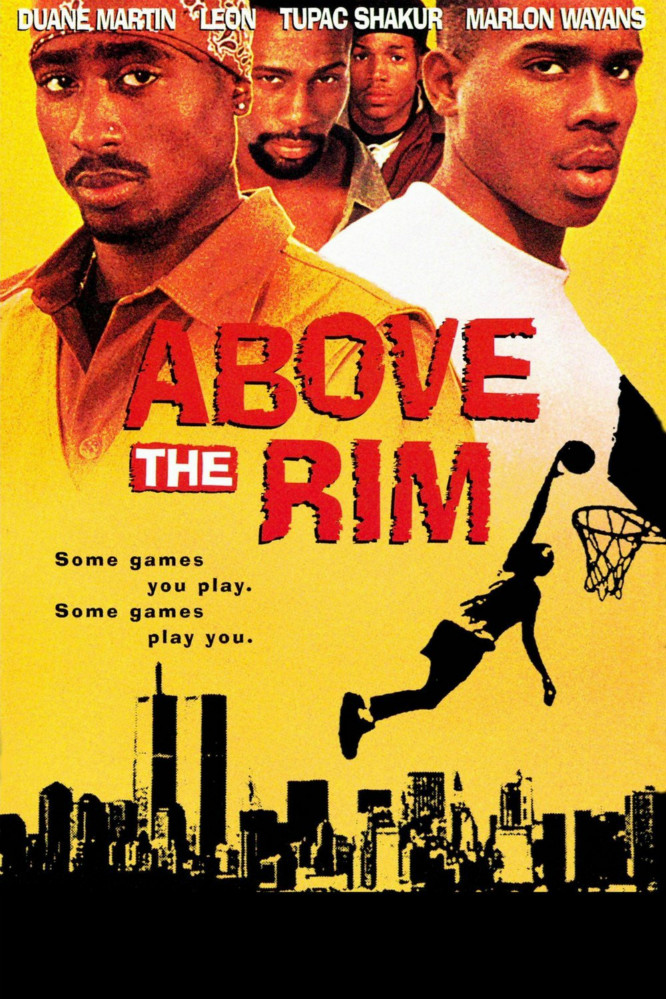
Above the Rim Font
Fonts in UseAbove the Rim is a 1994 sports drama film that follows a talented high school basketball player navigating the challenges of street life while chasing his dreams of playing in the NBA. It explores themes of friendship, loyalty, and the pressures of inner-city life.
The title of the film in the poster appears to have been inspired by the Ad Lib font, a decorative typeface created by Freeman Craw in 1961 for American Type Founders. More information is available here.